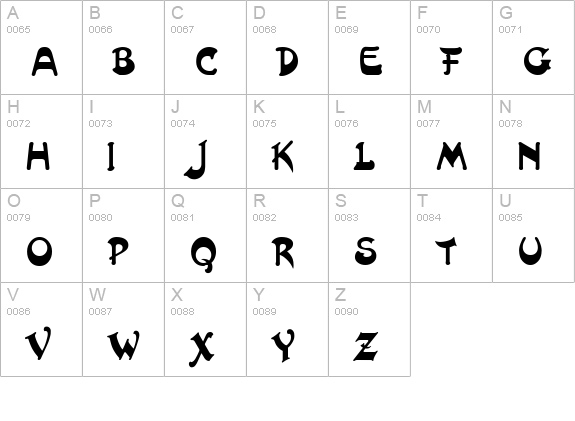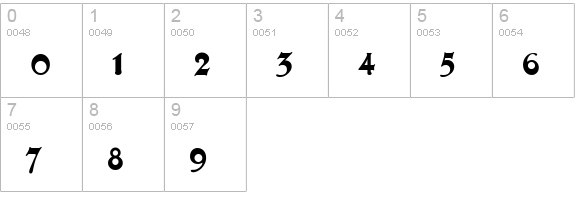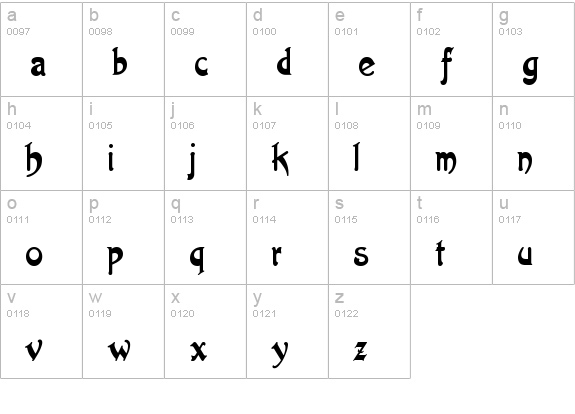
Karavan Display SSi Font Details
Karavan Display SSi is a stunning and versatile font that is sure to captivate and enchant anyone who lays eyes on it. With its unique and intricate design, this font is perfect for adding a touch of elegance and sophistication to any project or design. One of the most remarkable features of Karavan Display SSi is that it is freely available to download at FontsMarket.com. Yes, you read that right! This extraordinary font can be yours without spending a penny. It's rare to find such a high-quality font that is offered for free, making Karavan Display SSi a true gem in the world of typography. This font is a true testament to the creativity and expertise of its designers. Every curve, every line, and every detail has been meticulously crafted to create a font that is not only visually appealing but also incredibly easy to read. Whether you're designing a logo, creating a branding package, or simply want to add a touch of elegance to your personal projects, Karavan Display SSi is the perfect choice. With its wide range of weights and styles, this font offers endless possibilities for creative expression. From bold and impactful headlines to delicate and graceful body text, Karavan Display SSi can adapt to any design need. Its versatility is truly remarkable, allowing you to explore different typographic styles and create stunning compositions. So, why wait? Don't miss out on the opportunity to enhance your designs with this remarkable font. Visit FontsMarket.com today and download Karavan Display SSi for free. Experience the beauty and power of this font and unleash your creativity like never before.